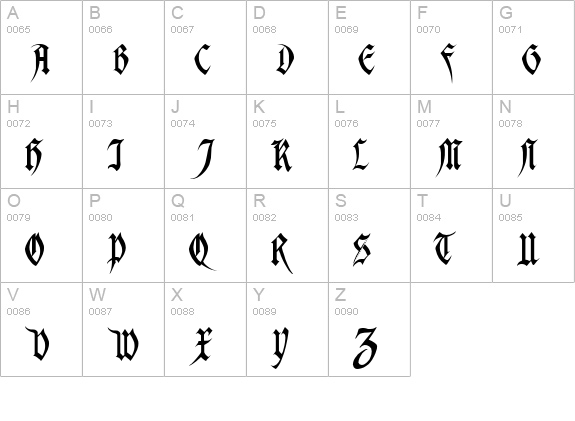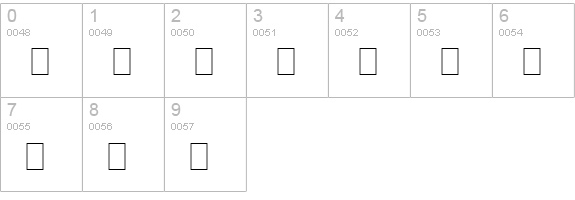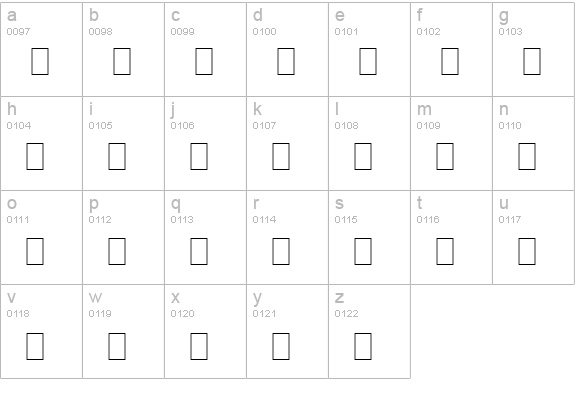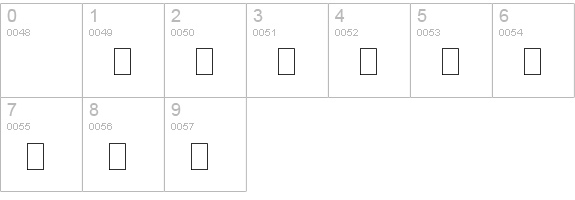
Magdelena Plain: Font Details
Magdelena Plain is a delightful and elegant font that effortlessly captures attention and adds a touch of sophistication to any design. With its clean lines and timeless appeal, this font is perfect for those who seek a refined and classic look. Crafted with meticulous attention to detail, Magdelena Plain exudes a sense of effortless grace and versatility. Its carefully designed letterforms strike the perfect balance between simplicity and elegance, making it suitable for a wide range of projects, from logos and branding materials to invitations and editorial designs. The beauty of Magdelena Plain lies not only in its aesthetics but also in its functionality. This font is incredibly legible, ensuring that your message is effortlessly communicated to your audience. Its generous spacing and clear letterforms make reading a pleasurable experience for readers of all ages and backgrounds. One of the best aspects of Magdelena Plain is that it is freely available to download at FontsMarket.com. This means that you can easily access and use this stunning font for personal or commercial projects without any cost. Whether you are a professional designer looking to add a touch of elegance to your work or a novice enthusiast exploring the world of typography, Magdelena Plain is a must-have addition to your font collection. So why wait? Download Magdelena Plain today and elevate your designs to new heights of sophistication and beauty. Let this font become your secret weapon for creating memorable and impactful visuals that leave a lasting impression. Experience the freedom of design with Magdelena Plain, and let your creativity soar.